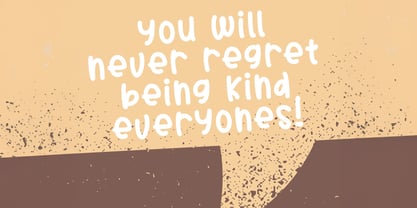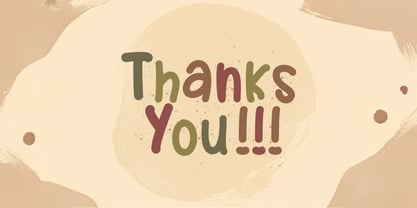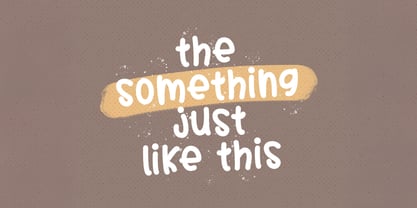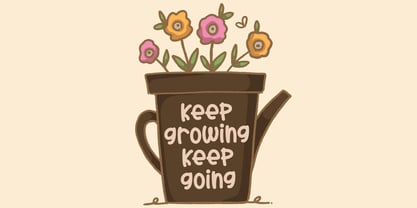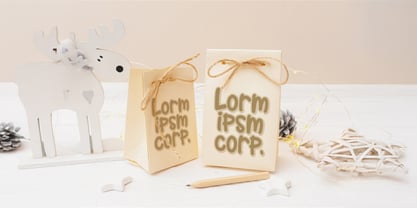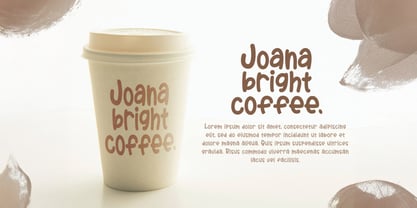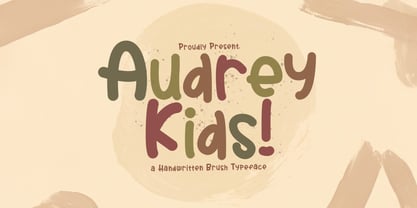
The Audrey Kids Font Family was designed by Virgiawan Listanto and published by Stringlabs Creative Studio. Audrey Kids contains 1 styles.
Audrey Kids is a fun, lively display font designed to capture the joy and energy of childhood. With its bold, rounded letters and whimsical, carefree style, this font is perfect for projects aimed at younger audiences or anything that needs a playful, lighthearted touch.